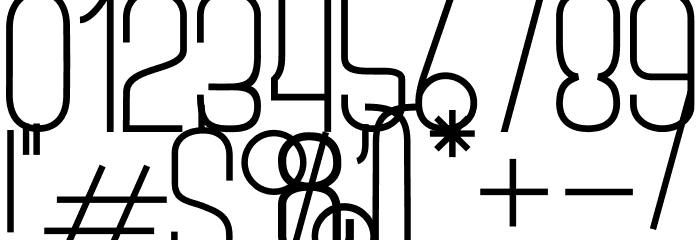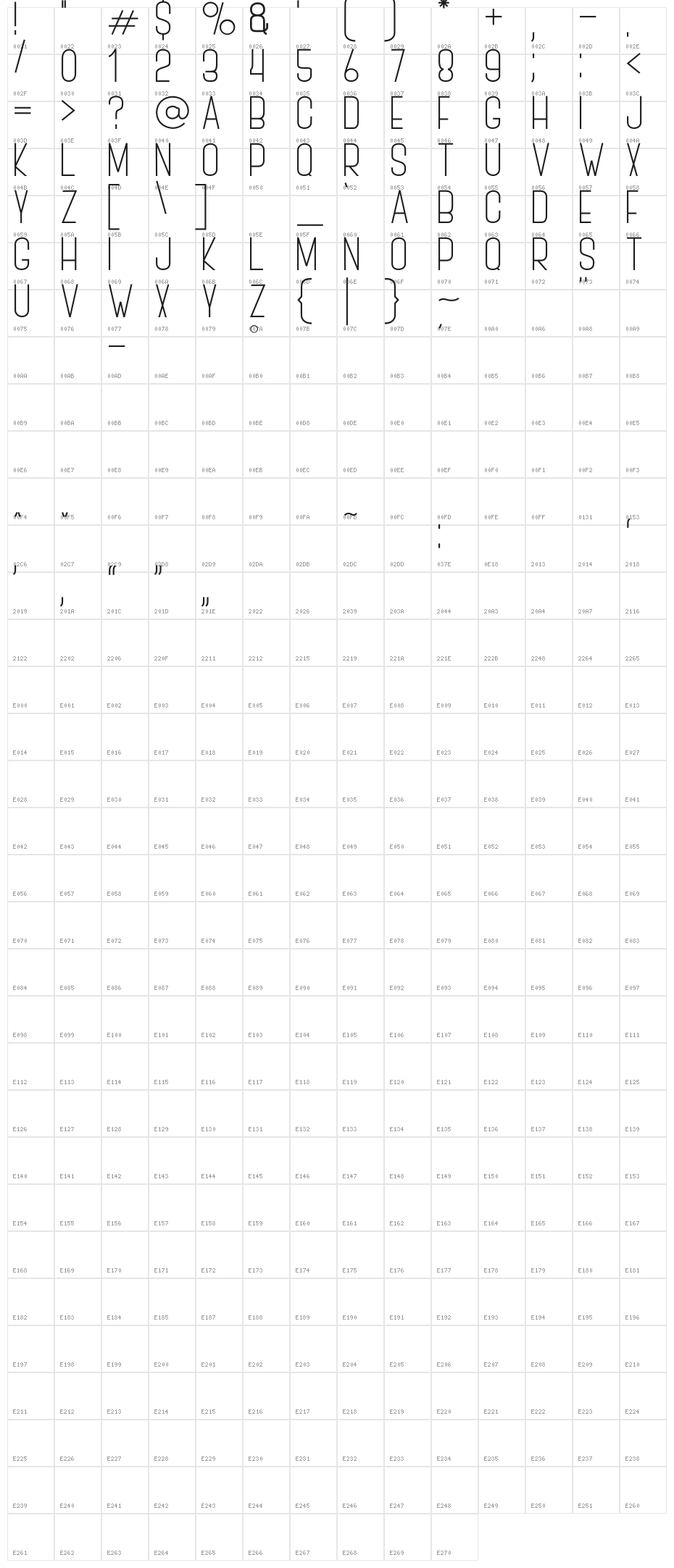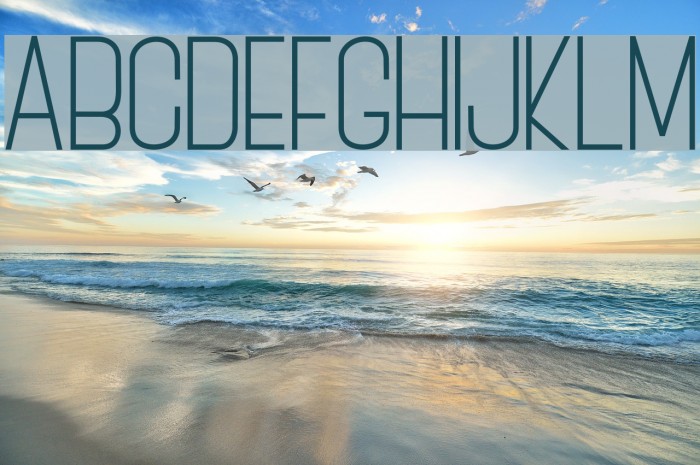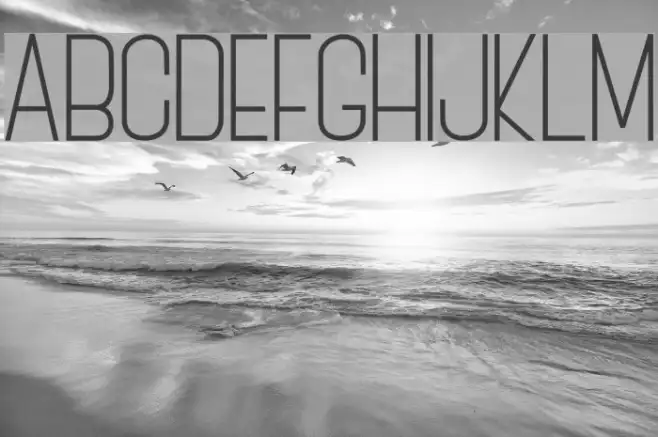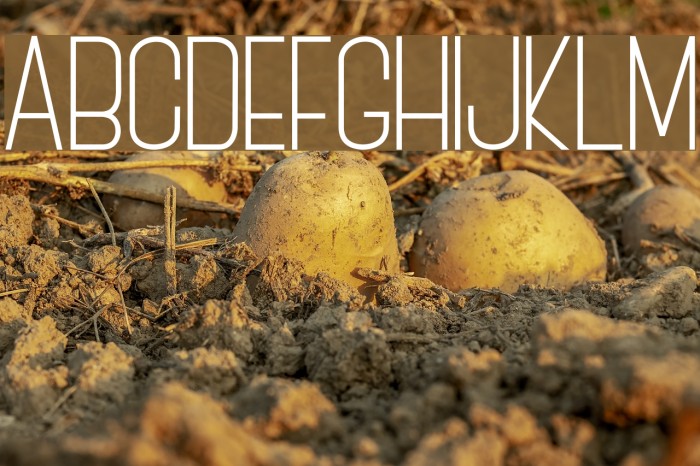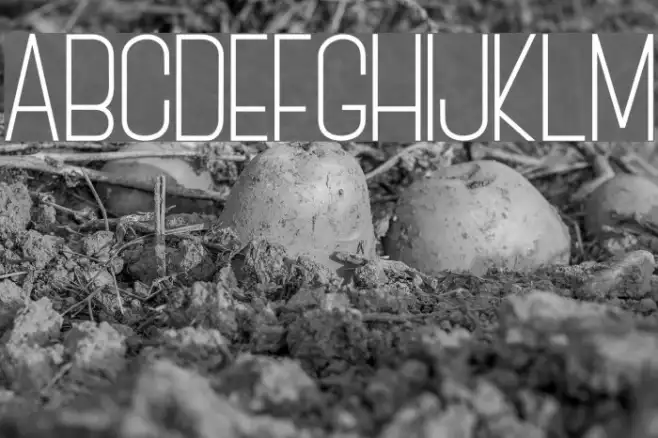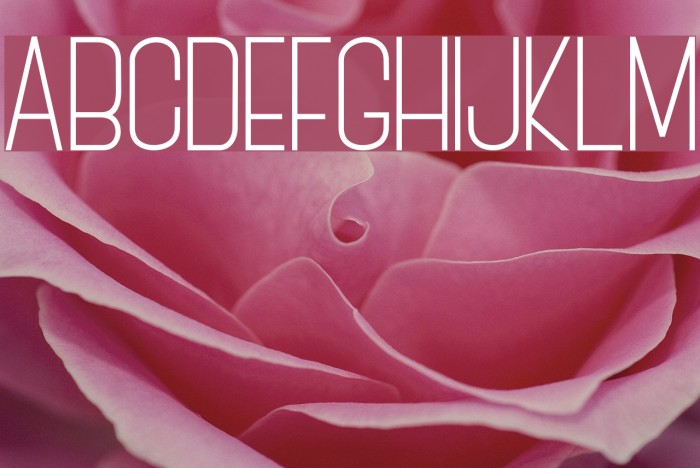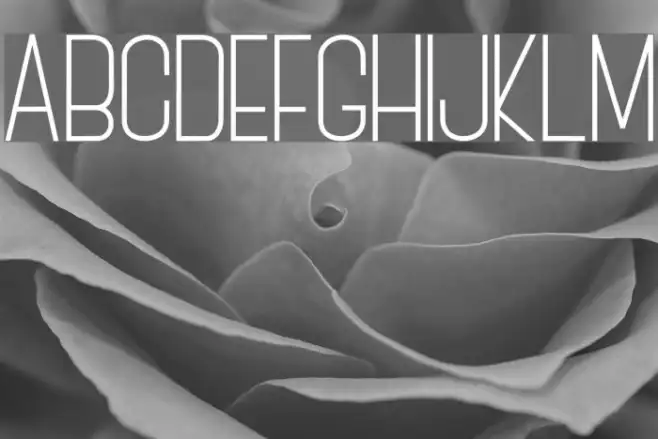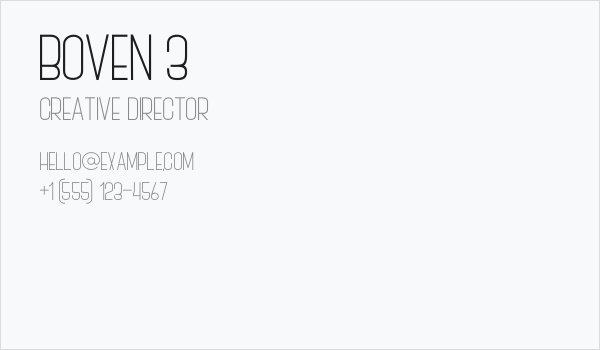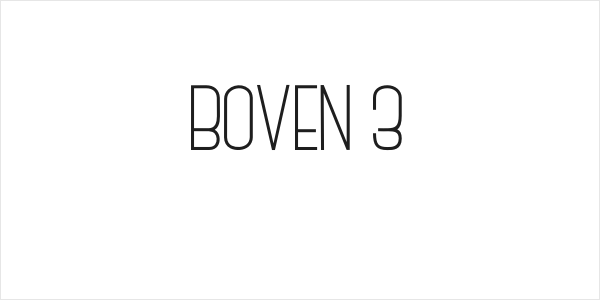
BOVEN 3 Font
BOVEN 3 Description
This font features a modern and sleek design with tall, narrow characters that convey a sense of elegance and sophistication. The uppercase letters are uniform in height, with clean, straight lines and sharp angles, giving them a contemporary appearance. The lowercase letters maintain the same narrow structure, ensuring consistency across the typeface. Numbers are designed with a similar aesthetic, offering clarity and readability. Special characters are distinct and well-integrated, enhancing the font's versatility. Overall, the font's minimalist style makes it suitable for a variety of applications, from digital media to print.
Use CaseHeadlines, Logos, Digital interfaces
Proposed ProjectsIdeal for branding, editorial design, digital interfaces, and modern advertising campaigns.